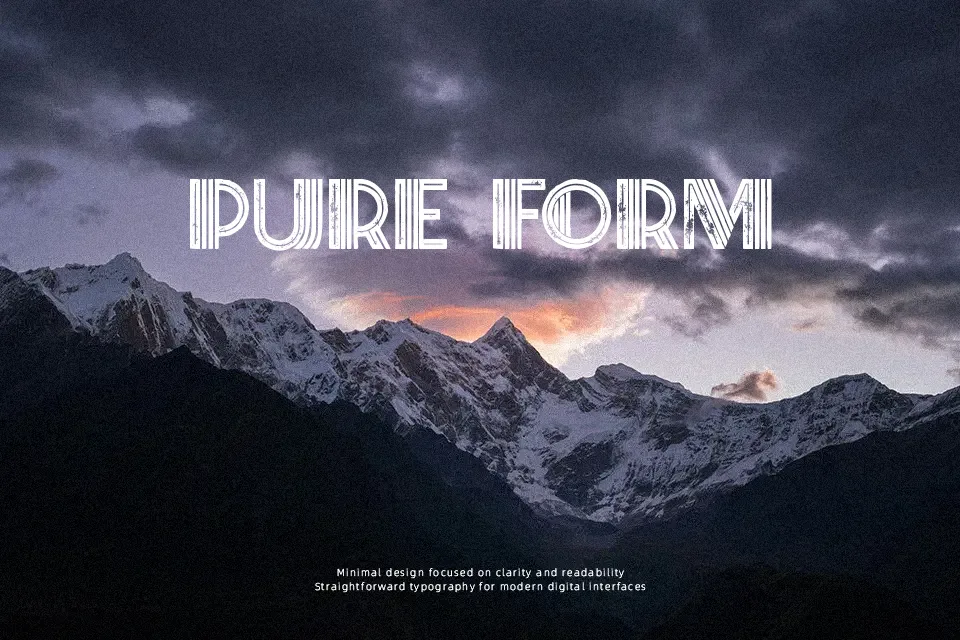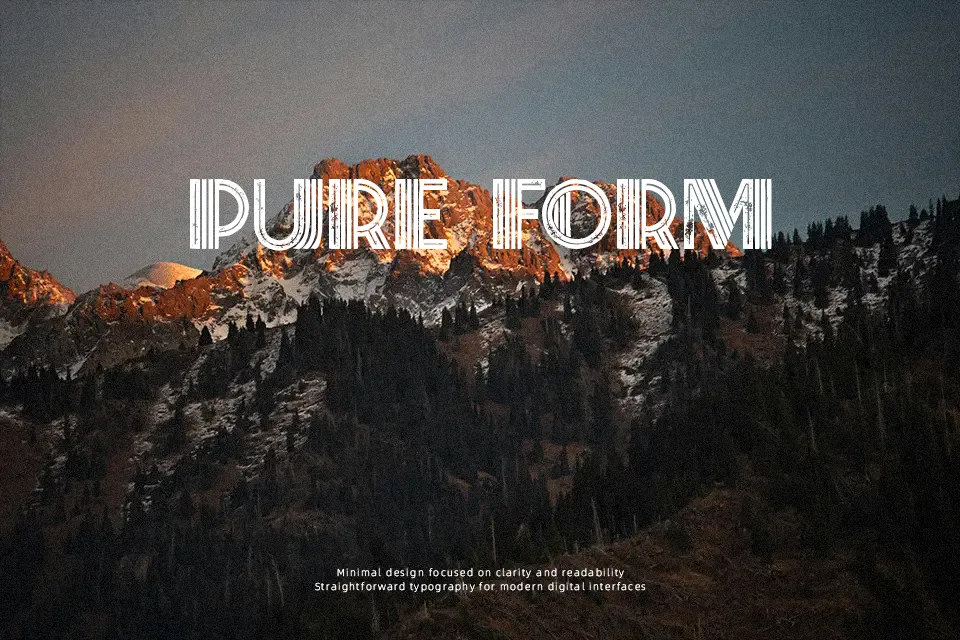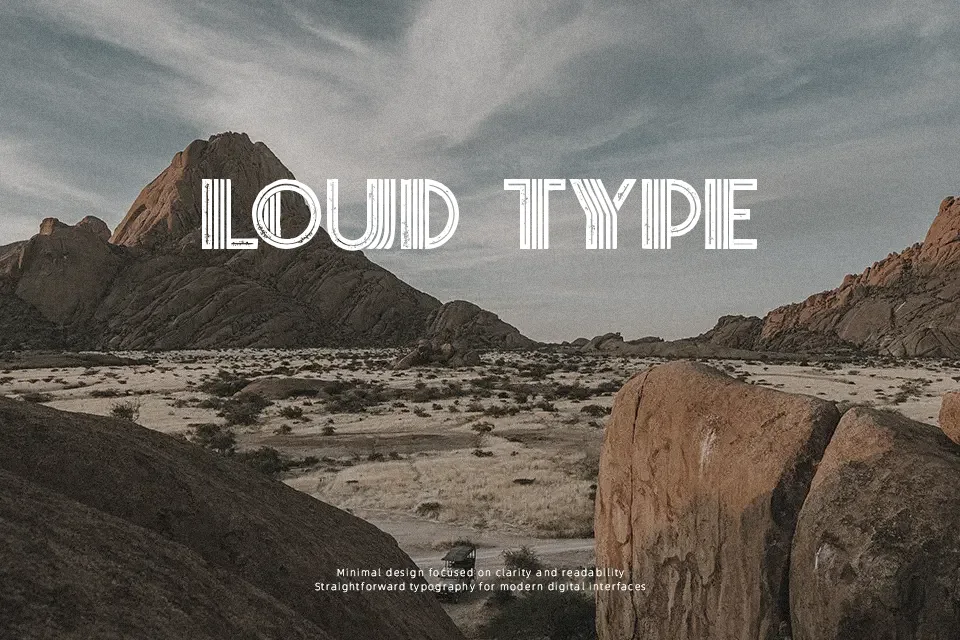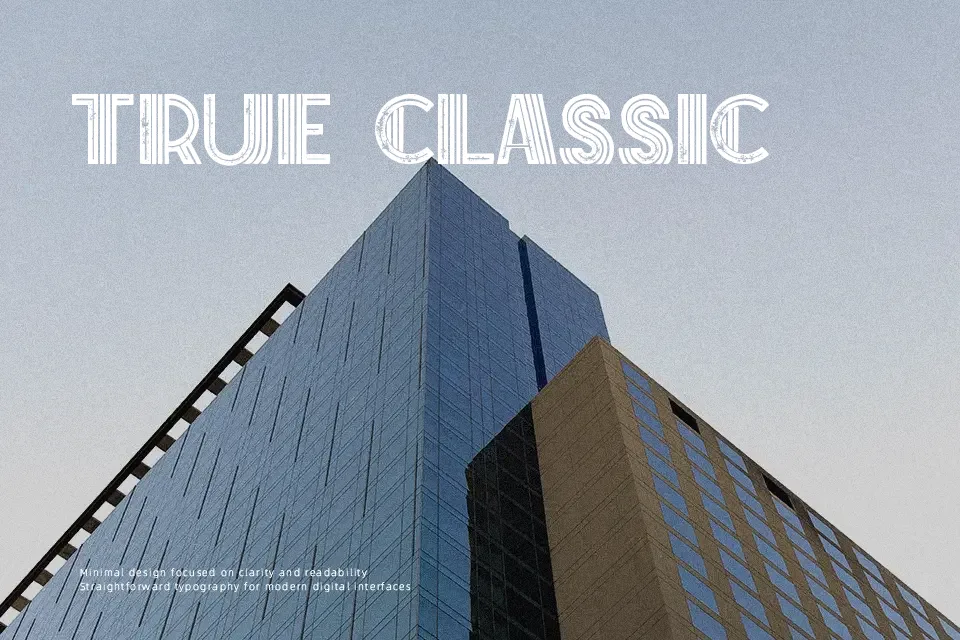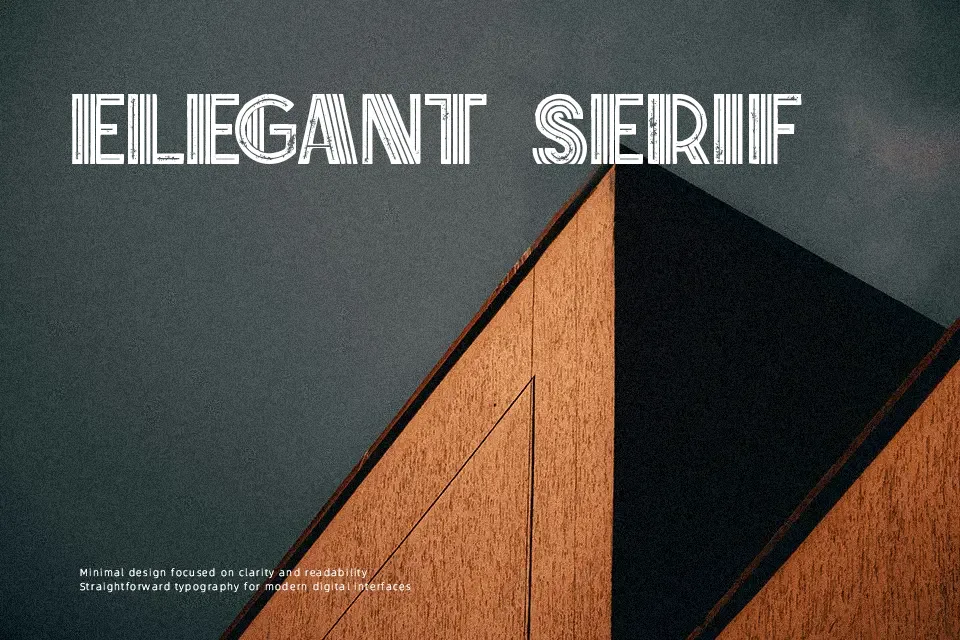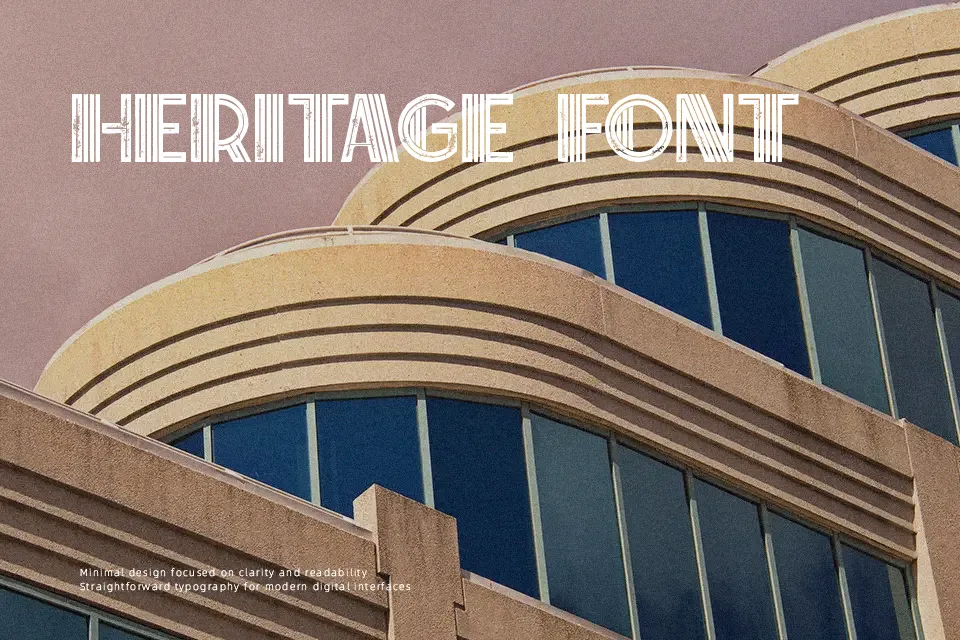
Brisk Font
Designed by Peter Olexa
Brisk Font combines rigid vertical strokes, tight curves, and stepped corners to create a structured art deco display look that feels both nostalgic and contemporary. Letters are fairly compact with consistent weight, so lines feel dense and graphic rather than airy. This gives titles and logos a strong, constructed presence, especially when used big or in short words. It shines in branding, posters, and social graphics where you need a decorative but still legible face, and it can pair nicely with a neutral sans serif for body copy. On the downside, its stylized shapes make it tiring for long paragraphs or small UI labels, and it can feel too ornamental for strict corporate or minimalist interfaces.
Short headlines with deco flair
Branding experiments and logos
Posters and cover layouts
Long body text or reading-heavy pages
Tiny captions and UI labels
Strictly minimal or corporate documents